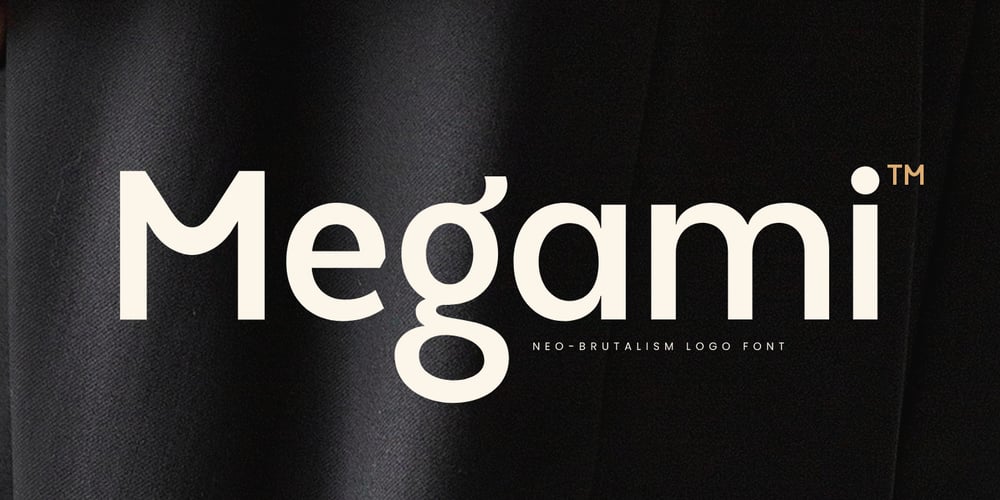
Megami Font Family was designed by Zamroni Hamzah and published by Sensatype Studio. Megami contains 1 styles and family package options. Introducing Megami, a bold and striking font inspired by the Neo-Brutalism design movement. Perfect for creating modern and impactful logos, Megami combines clean lines and edgy aesthetics to make your brand stand out.Megami Font Features: Bold Design: Strong and striking, ideal for creating impactful logos and branding. Neo-Brutalism Style: Inspired by the Neo-Brutalism movement, bringing a modern and minimalist touch to your designs. Versatile Usage: Perfect for logos, posters, headlines, and graphic design projects. Multiple Formats: Available in 4 formats for flexibility. Clean Aesthetics: Minimalist and edgy, ensuring your designs stand out. Inspirational Previews: Includes sample designs to spark your creativity. Elevate your branding with Megami, a font that embodies the essence of Neo-Brutalism. Whether you’re designing logos, posters, or other graphic projects, Megami adds a bold and stylish touch to your work. Make a statement with Megami’s modern and clean design.